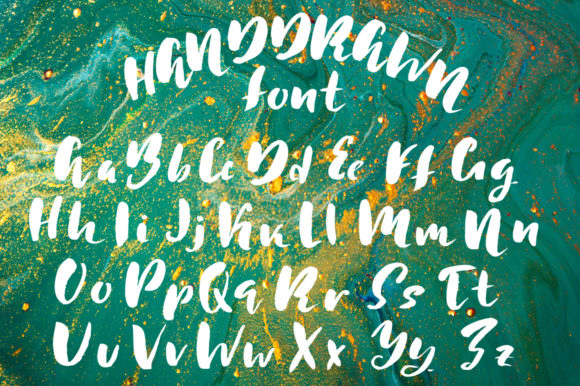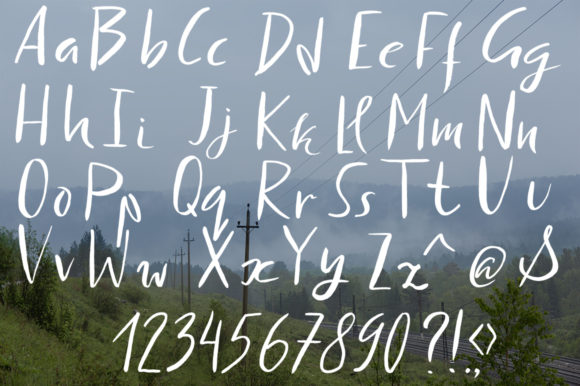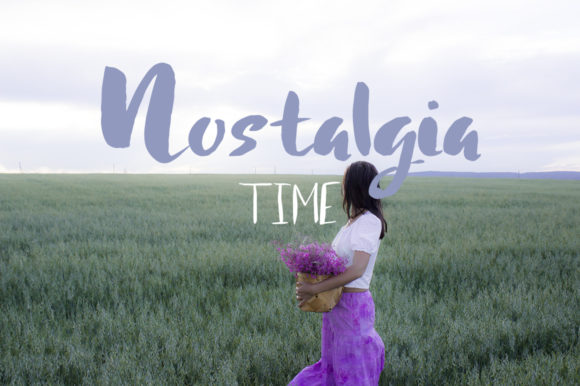
Getting Creative with Simple Ink Duo Font
Have you ever been in the middle of a design project, rummaging through your font collection, searching for that perfect retro touch? That’s exactly where Simple Ink Duo Font comes in – a beautiful, high-quality font that will transport your creative projects back to the good old days.
| 👤 Author | Ana Babi |
Whether you’re working on a greeting card, a typography piece, or any other design project that needs a dash of nostalgia, Simple Ink Duo Font is the perfect addition to your design resource arsenal. With its unique, elegant style and transparent background, this font is sure to elevate your creative project to the next level.
Introduction to Simple Ink Duo Font
Key Features of Simple Ink Duo Font
- Unique Duo Font Design: The Simple Ink Duo Font offers a distinctive combination of two fonts in one, perfect for creative projects where a dual typography style is desired.
- Transparent Background: The transparent background of this font allows for seamless integration with any design element, making it an ideal design resource for graphic designers.
- High Resolution: Designed at 300 DPI, this font ensures that the text remains clear and legible even when scaled up or used in high-resolution designs.
- Size: The font comes in two sizes, making it versatile for use in various creative projects, from small to large-scale designs.
- Perfect for Creative Projects: The Simple Ink Duo Font is ideal for use in creative projects, such as logos, brochures, business cards, and more, where a unique and eye-catching typography style is desired.
Honest Review: Simple Ink Duo Font
I recently had the chance to work with the Simple Ink Duo Font, and I must say, it’s a fantastic addition to any designer’s toolkit. As a design resource, this font is incredibly versatile and easy to use.
- High-quality design: The Simple Ink Duo Font features crisp, clean lines and a modern aesthetic that’s perfect for creative projects.
- Limited font variations: While the Simple Ink Duo Font is well-designed, it’s limited to a single style and weight.
- Not suitable for complex text: Due to its minimalist design, this font may not be the best choice for complex or dense text.
Overall, I’m really impressed with the Simple Ink Duo Font. It’s a great choice for designers working on creative projects, and its high-quality design and transparent background make it a versatile resource. With a few limitations in mind, I’d definitely recommend giving it a try.
The Simple Ink Duo Font is a free design resource ideal for creative projects that require a unique, elegant touch. With its high-quality design and transparent background, this font is perfect for adding a personal touch to your work.
The Simple Ink Duo Font is ideal for use in wedding invitations, greeting cards, and other creative projects where a touch of elegance is required.